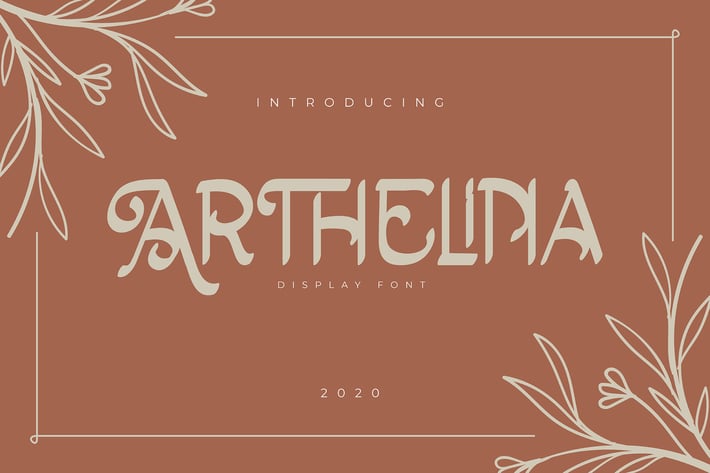
Arthelina | Display Font
Arthelina | Display Font with a calligraphy style, So beautiful on invitation like greeting cards, branding materials, business cards, quotes, posters, and more!